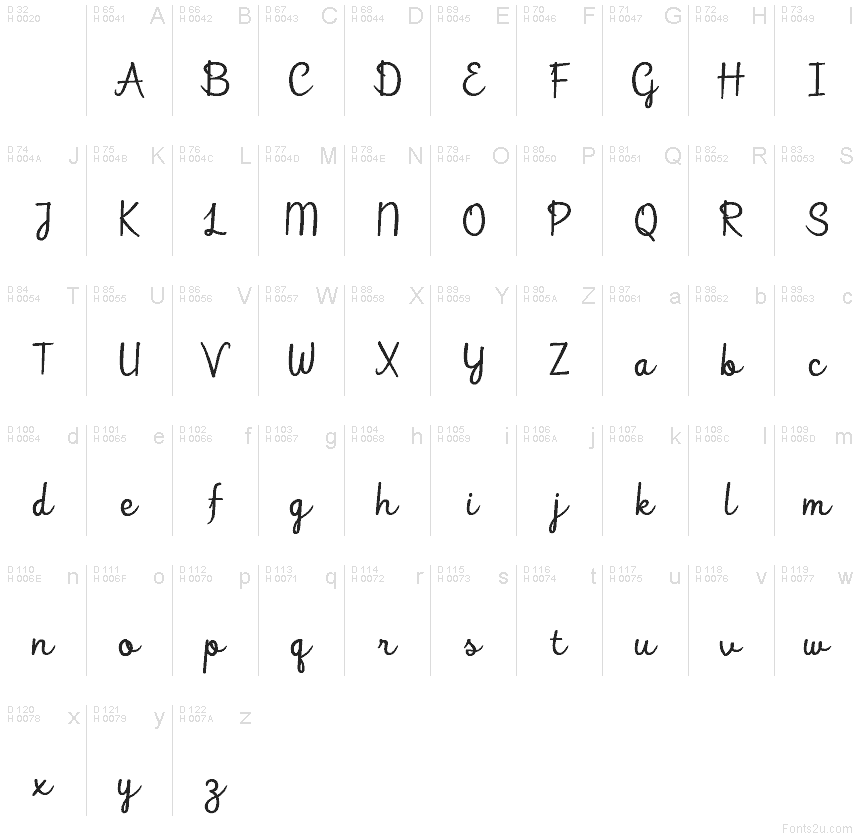
CS Glinka Regular Demo
CS Glinka font by Craft Supply Co. is a free regular handwritten script display font. Its inky, slightly grainy strokes and gentle rightward slant give it a warm, lived-in feel, while the even rhythm and open joins keep it comfortably legible. There’s a friendly bounce to the baseline and soft, rounded turns that read as personal without getting messy.
Using CS Glinka, you’ll get a natural fit for boutique logos, wedding stationery, product packaging, quote graphics, social posts, and greeting cards. The consistent spacing helps headlines and subheads stay clear, even at modest sizes, and the subtle texture adds charm on print or screen. This free font pairs beautifully with a clean, light sans—set the sans small for body while letting CS Glinka sing in titles.
CS Glinka Demo